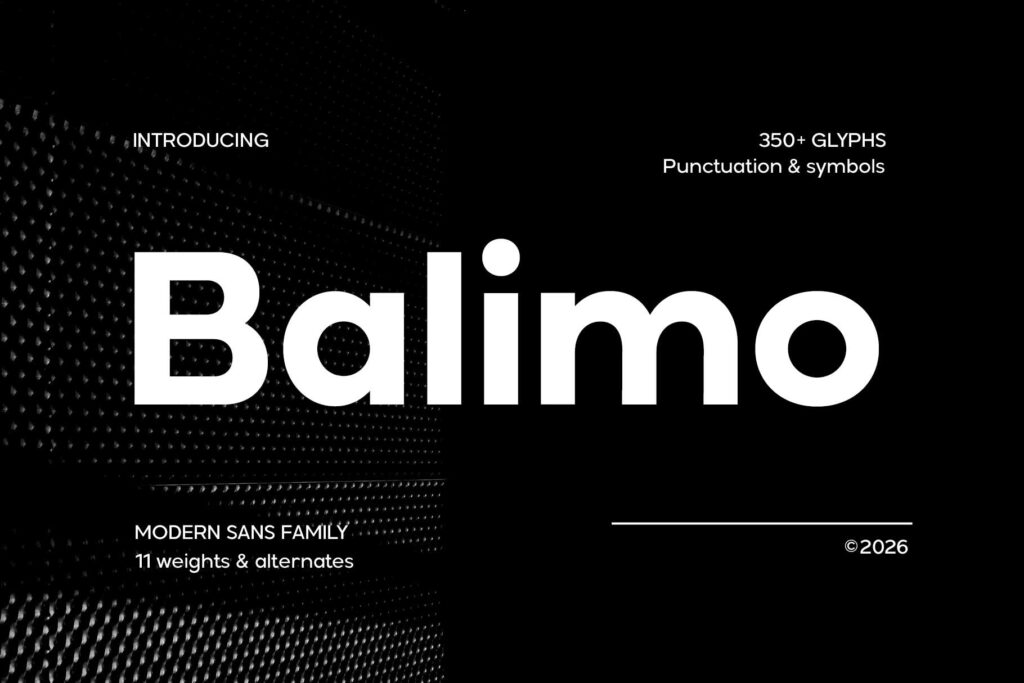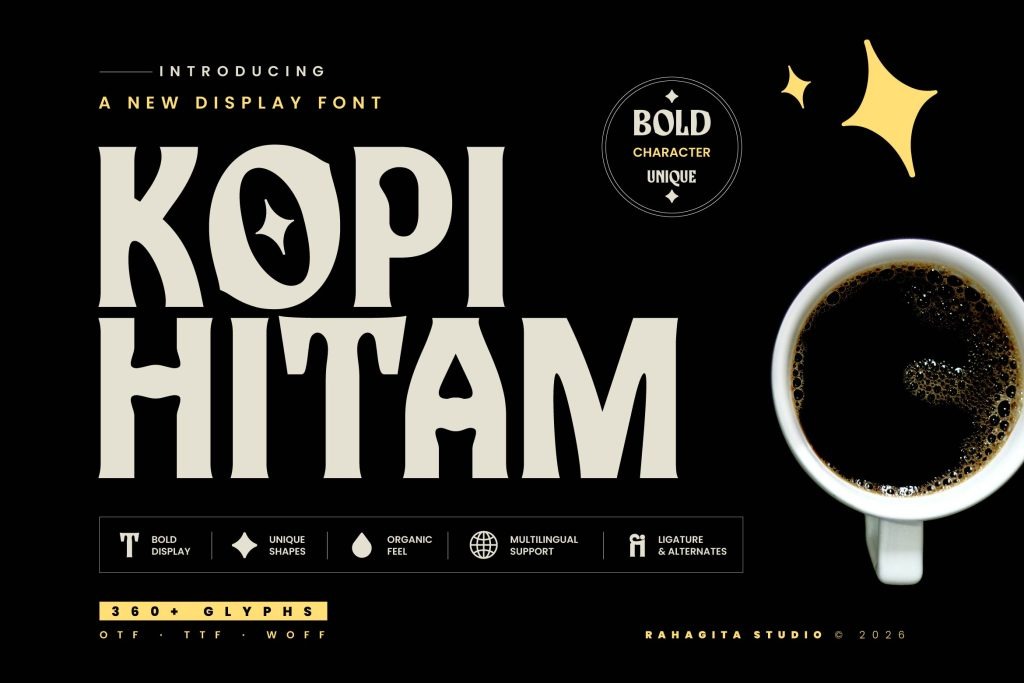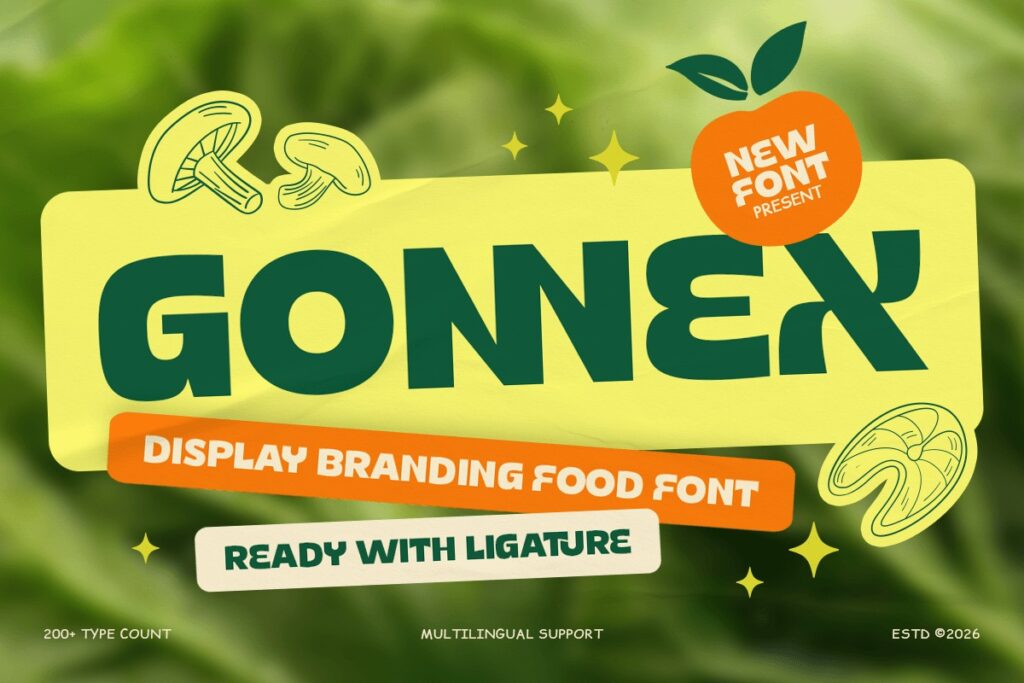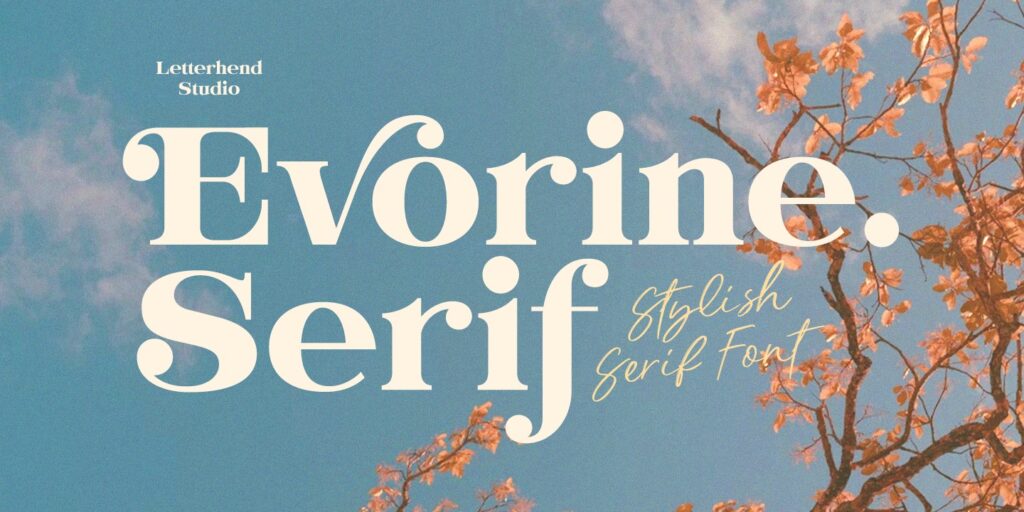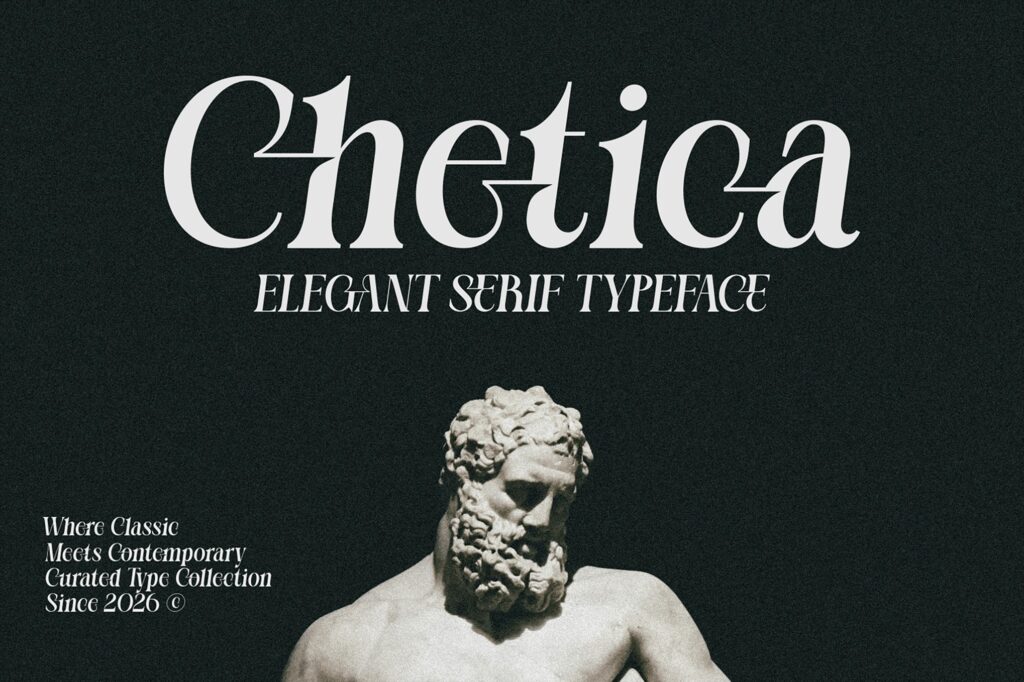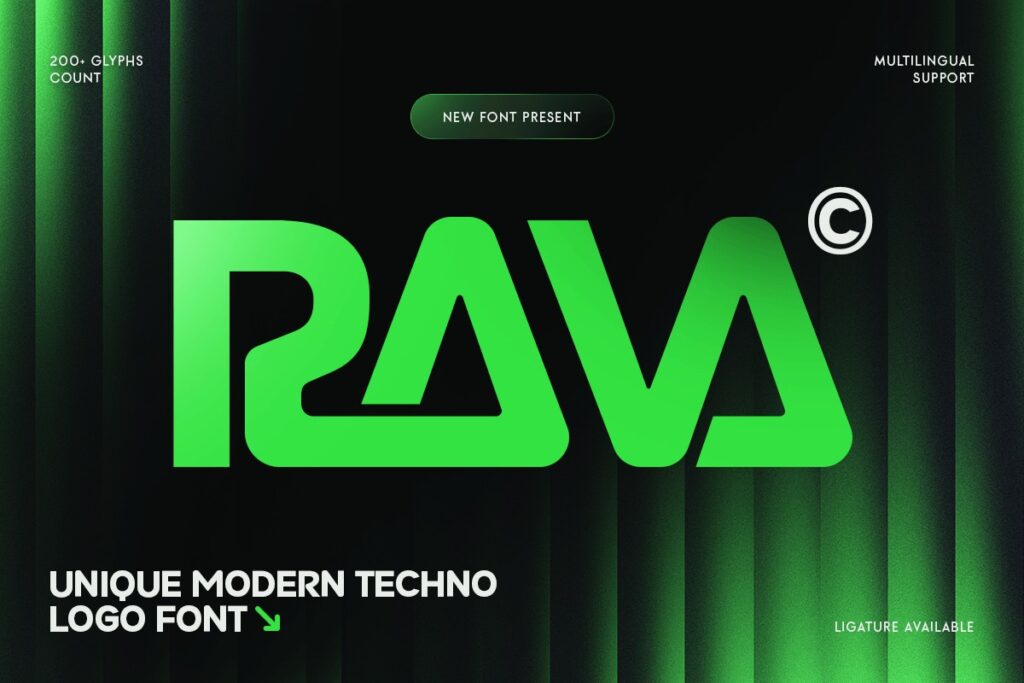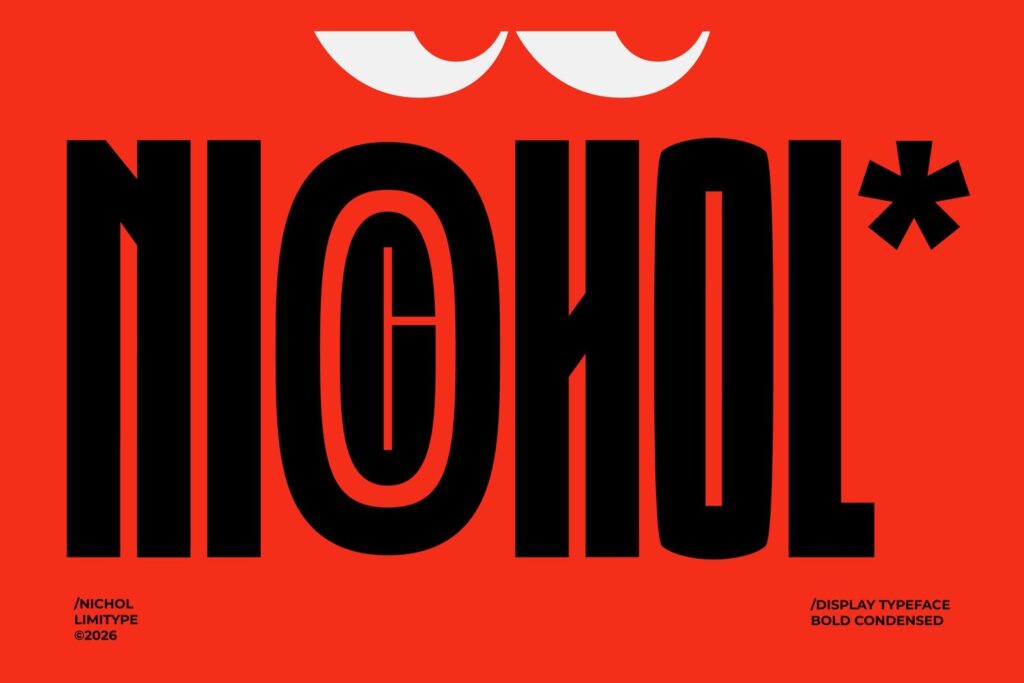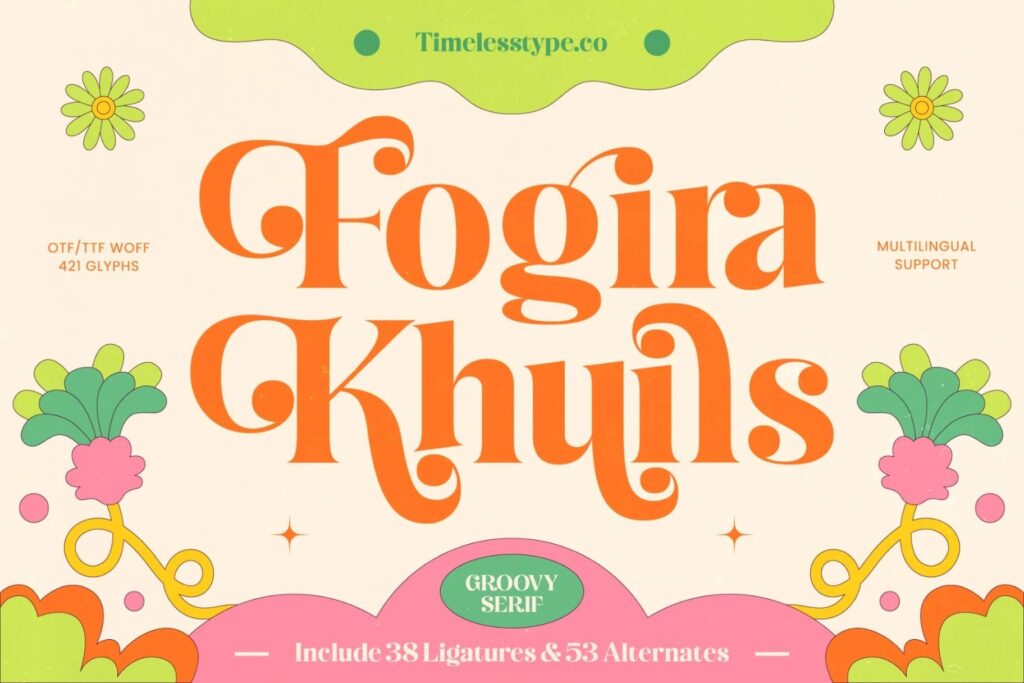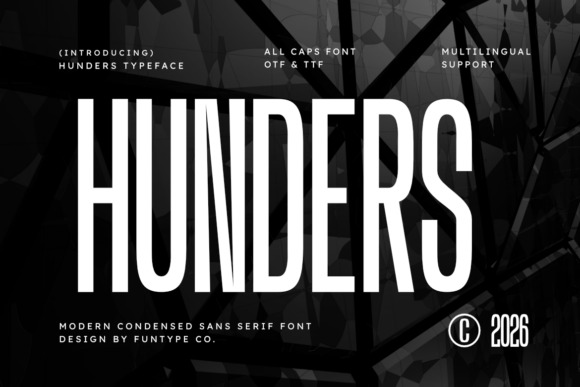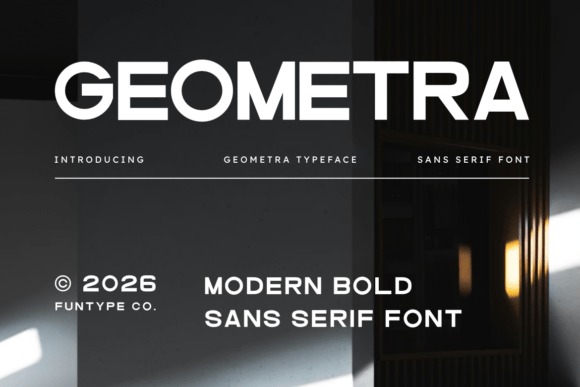
Balimo – Modern Sans Serif Font
Balimo – Modern Sans Serif Font is a stylish typeface that enhances visual appeal and works effortlessly in many design contexts. Balimo is a modern sans serif typeface designed to deliver clarity, balance, and strong visual presence across any design.
Victoria Winter Font Duo
Victoria Winter Font Duo is a distinctive and expressive font crafted to bring personality, structure, and creative energy into your projects. VICTORIA WINTER is a modern branding sport Festival font designed to deliver strength, motion, and competitive energy in every letter
Kopi Hitam Diplay Font
Kopi Hitam Diplay Font is a versatile font designed to adapt beautifully across different design styles, offering dependable readability and balance. Kopi Hitam is a powerful display typeface born from the soul of bold, unapologetic design.
Gonnex – Bold Sans Serif Font
Gonnex – Bold Sans Serif Font is a professionally designed typeface that delivers clarity, structure, and consistent performance across various design applications. Gonnex is a bold display food font designed to create a strong
Evorine Serif – Refined Serif Font
Evorine Serif – Refined Serif Font is a flexible and reliable font created to fit multiple design needs, from branding and packaging to social media and editorial layouts. Evorine Serif is a dreamy little statement font with soft curves, bold elegance
Chetica – Elegant Serif Font
Chetica – Elegant Serif Font is a stylish typeface that enhances visual appeal and works effortlessly in many design contexts. Chetica is an elegant serif typeface that gracefully bridges classic sophistication with modern refinement.
Rava – Modern Techno Logo Font
Rava – Modern Techno Logo Font is a distinctive and expressive font crafted to bring personality, structure, and creative energy into your projects. RAVA is a modern techno logo font designed to bring futuristic precision and bold digital character to your typography.
Nichol – Modern Condensed Font
Nichol – Modern Condensed Font is a clean and thoughtfully built typeface that works seamlessly for both professional branding and everyday creative uses. Nichol is a modern condensed font with sharp corners and distinctive curves in each letterform
Fogira Khuils – Groovy Serif Font
Fogira Khuils – Groovy Serif Font is a premium-quality font developed to enhance your work with a polished, modern, and visually elevated look. Fogira Khuils – Groovy Serif Font is a stunning high-contrast display face capturing the expressive energy of the 1970s.
Hunders – Condensed Sans Serif Font
Hunders – Condensed Sans Serif Font is a versatile font designed to adapt beautifully across different design styles, offering dependable readability and balance. Hunders is a bold and powerful modern condensed sans serif font designed for high-impact and elegant typography.
Geometra – Modern Sans Serif Font
Geometra – Modern Sans Serif Font is a premium-quality font developed to enhance your work with a polished, modern, and visually elevated look. Geometra is a bold and powerful modern sans serif font designed for high-impact and precise typography.
Motria – Bold Sans Serif Font
Motria – Bold Sans Serif Font is a stylish typeface that enhances visual appeal and works effortlessly in many design contexts. Motria is a super thick typeface with more traditional letter shapes, making it perfect for creating (or recreating) the concise look of film poster production credits.
Moreco – Diplay Sans Serif Font
Moreco – Diplay Sans Serif Font brings a balanced structure and contemporary look, making it suitable for both digital and print design. Moreco is a experimental unique sans flow quirky typeface all caps with stylish curve and handmade font visual design
Brace – Branding Tech Logo Font
Brace – Branding Tech Logo Font brings a balanced structure and contemporary look, making it suitable for both digital and print design. Brace – Branding Tech Logo Font is a modern display typeface crafted to represent clarity, innovation, and digital precision.
Prequel Display – Minimal Sans Font
Prequel Display – Minimal Sans Font is a distinctive and expressive font crafted to bring personality, structure, and creative energy into your projects. Prequel is a contemporary sans-serif typeface defined by its refined minimalism and soft geometric clarity.